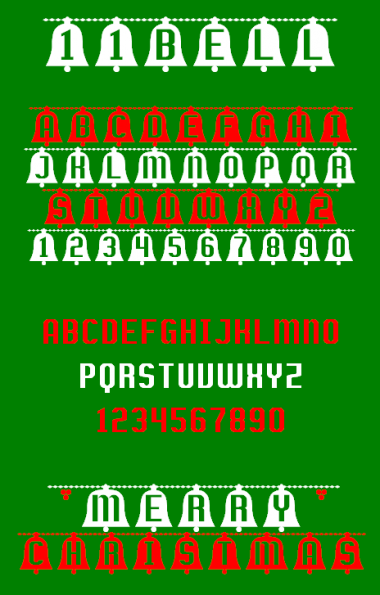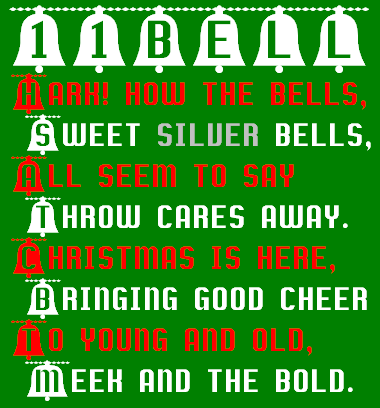
11Bell
A Bell font for Christmas. Holly is on the low line. Empty bell is on the tilde.
Neat fontstruction but red color on the sample looks disturbing...
Ding Dong! Very nice.